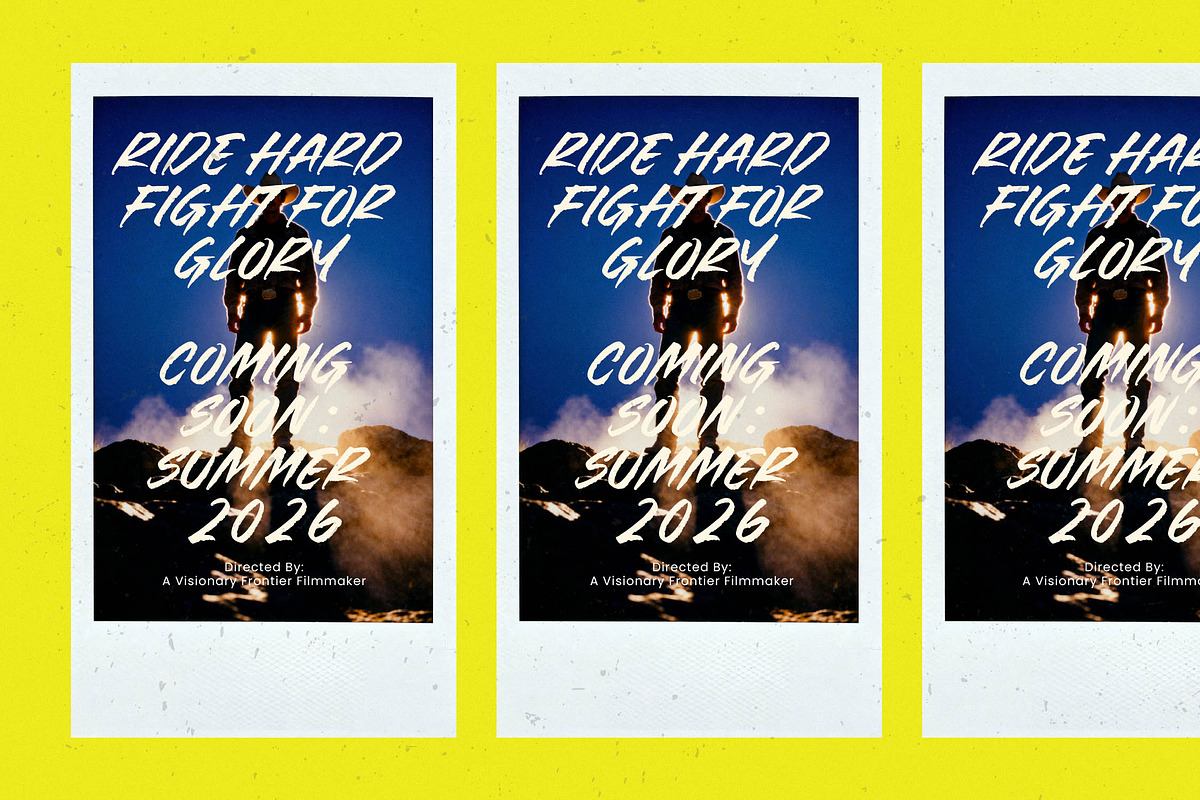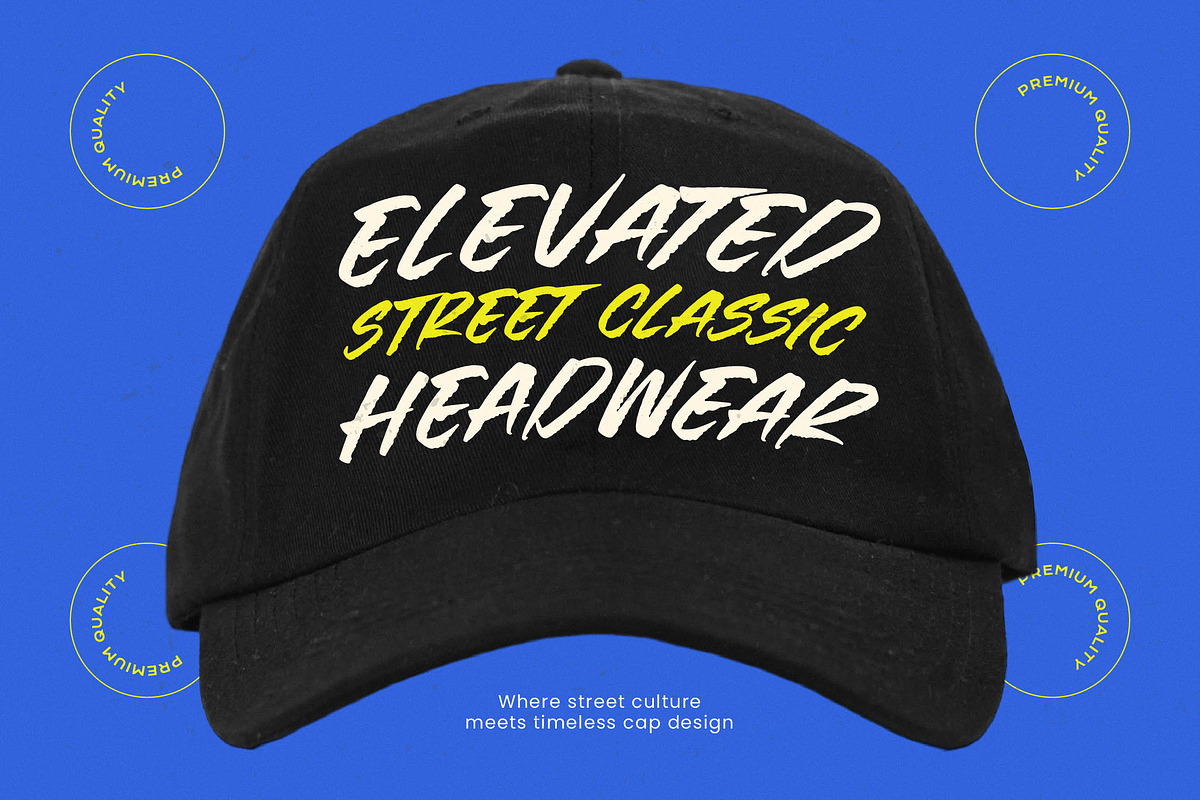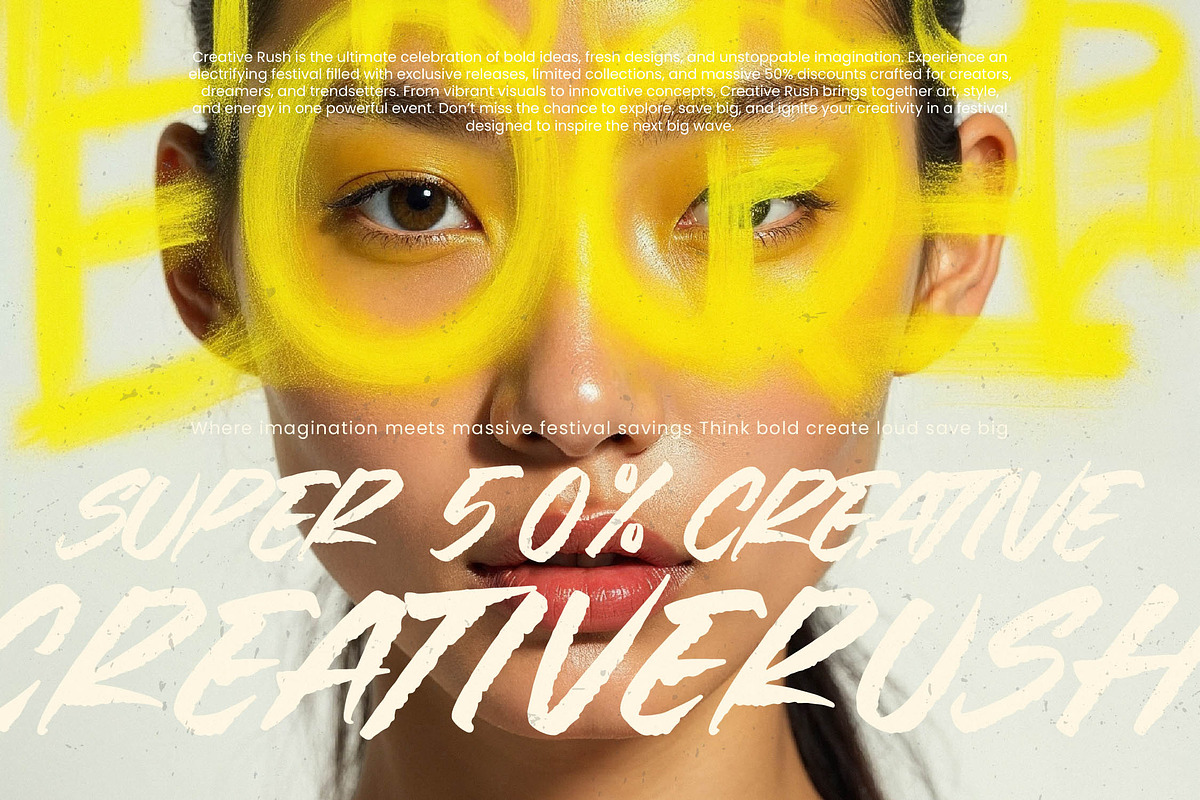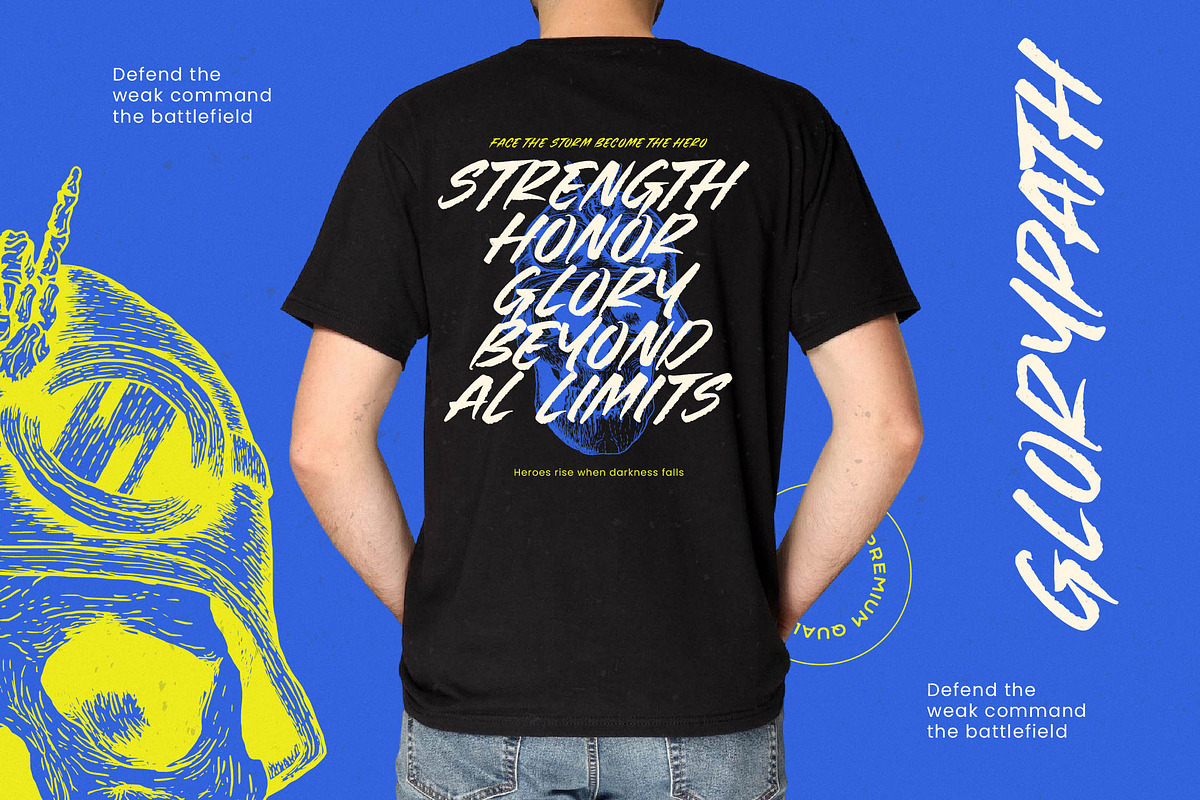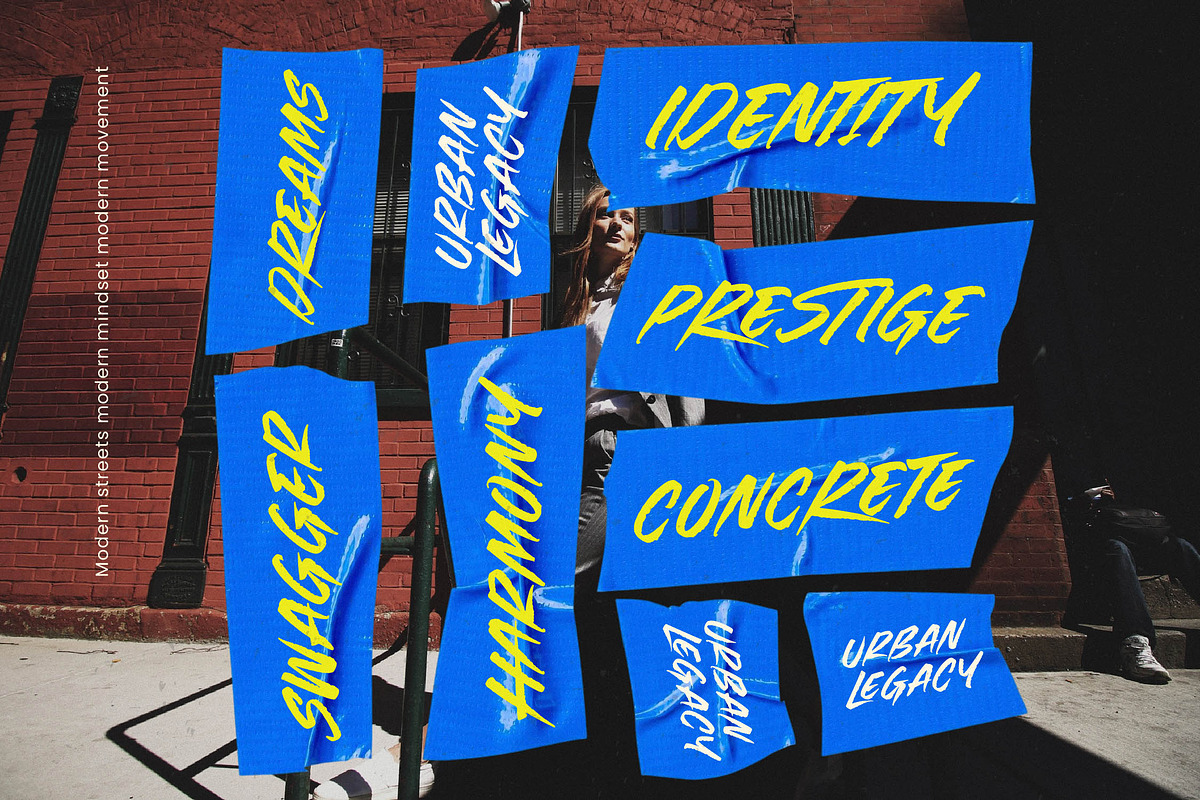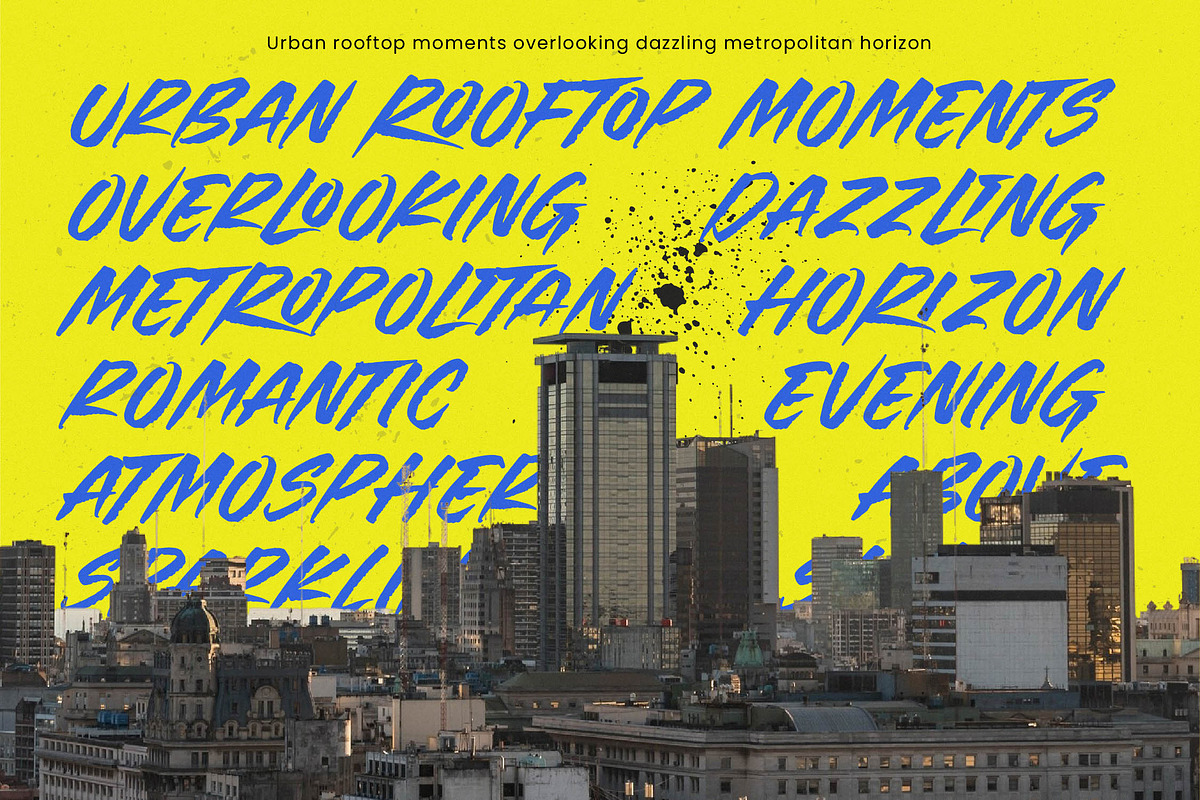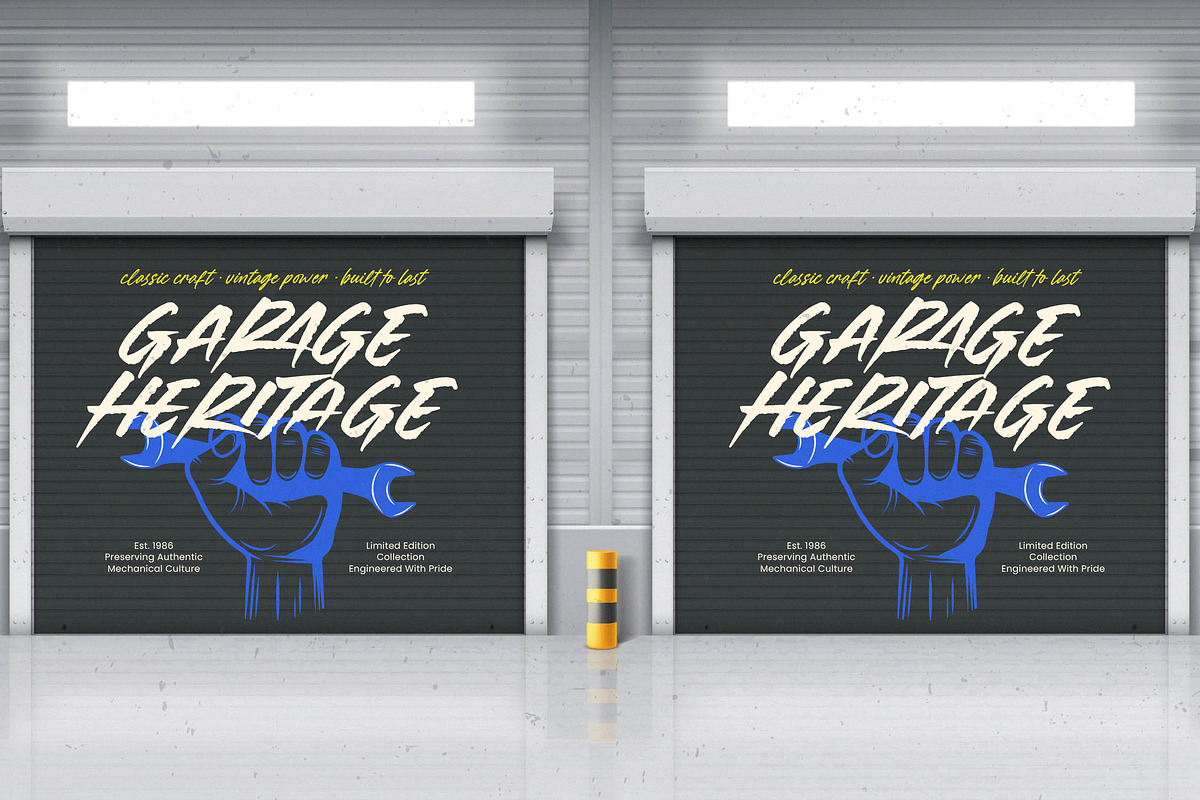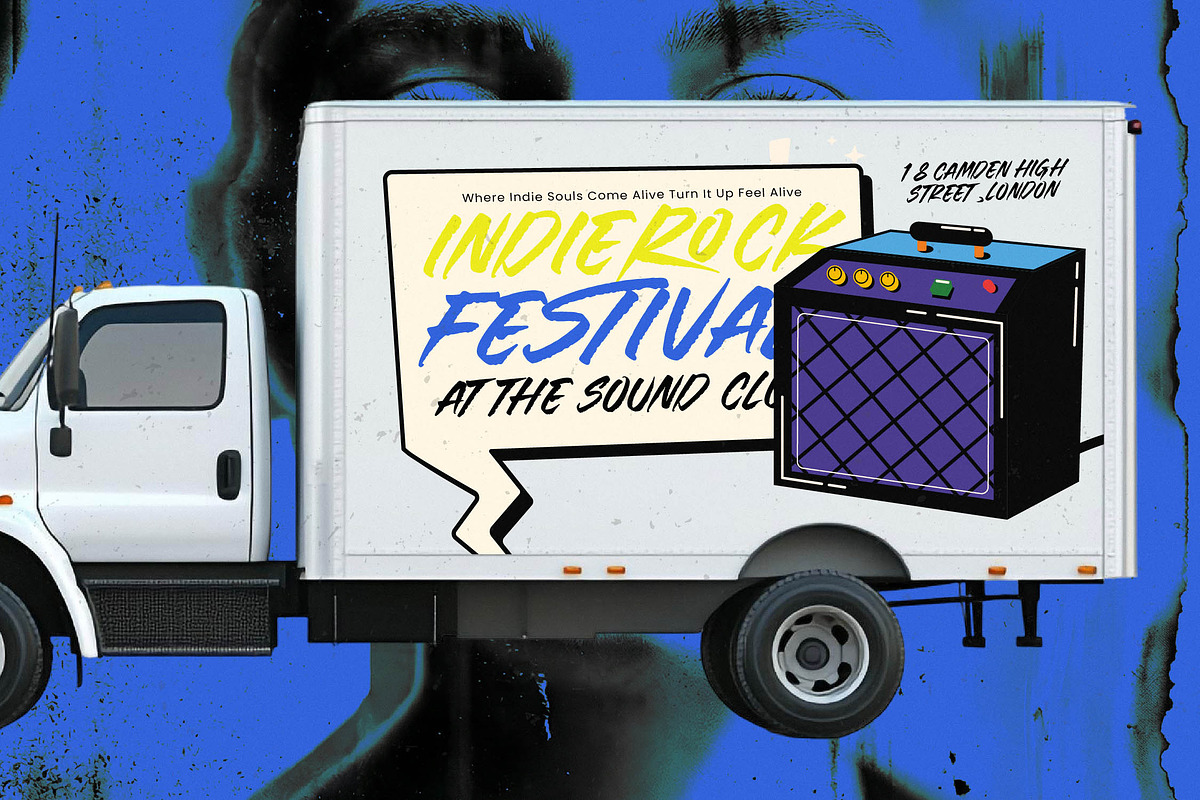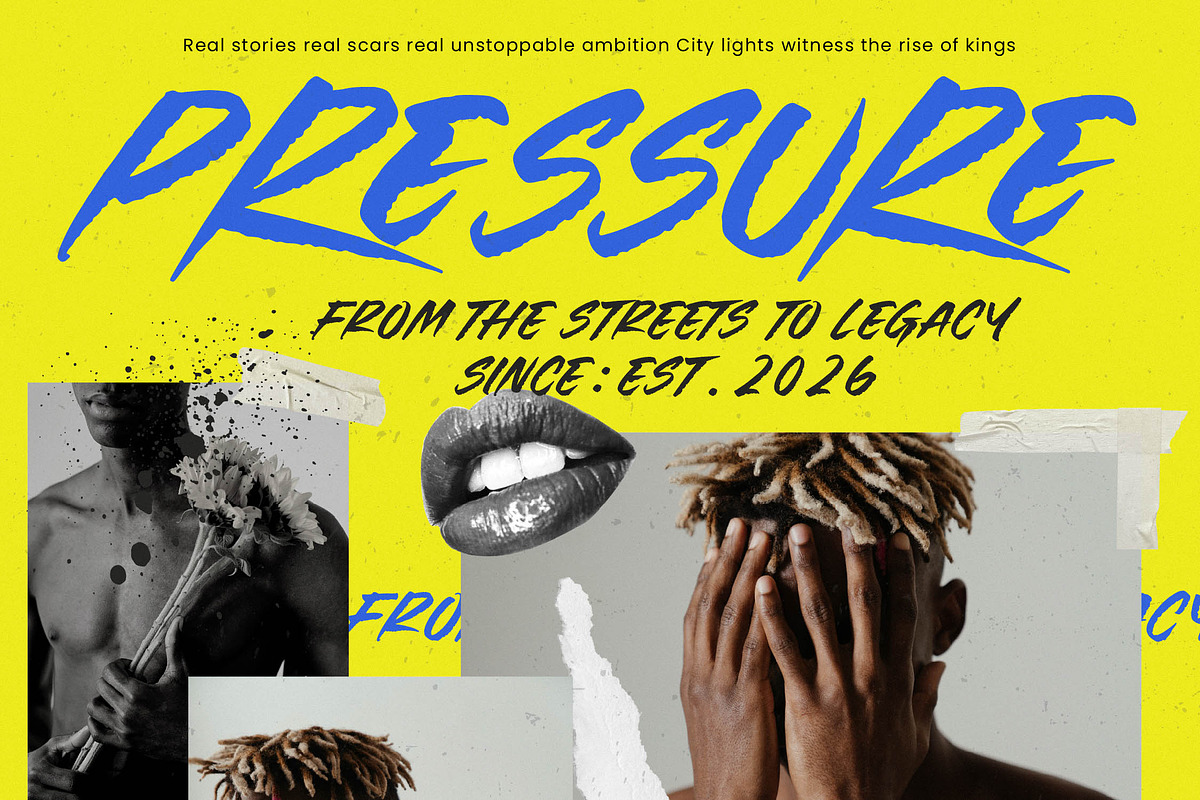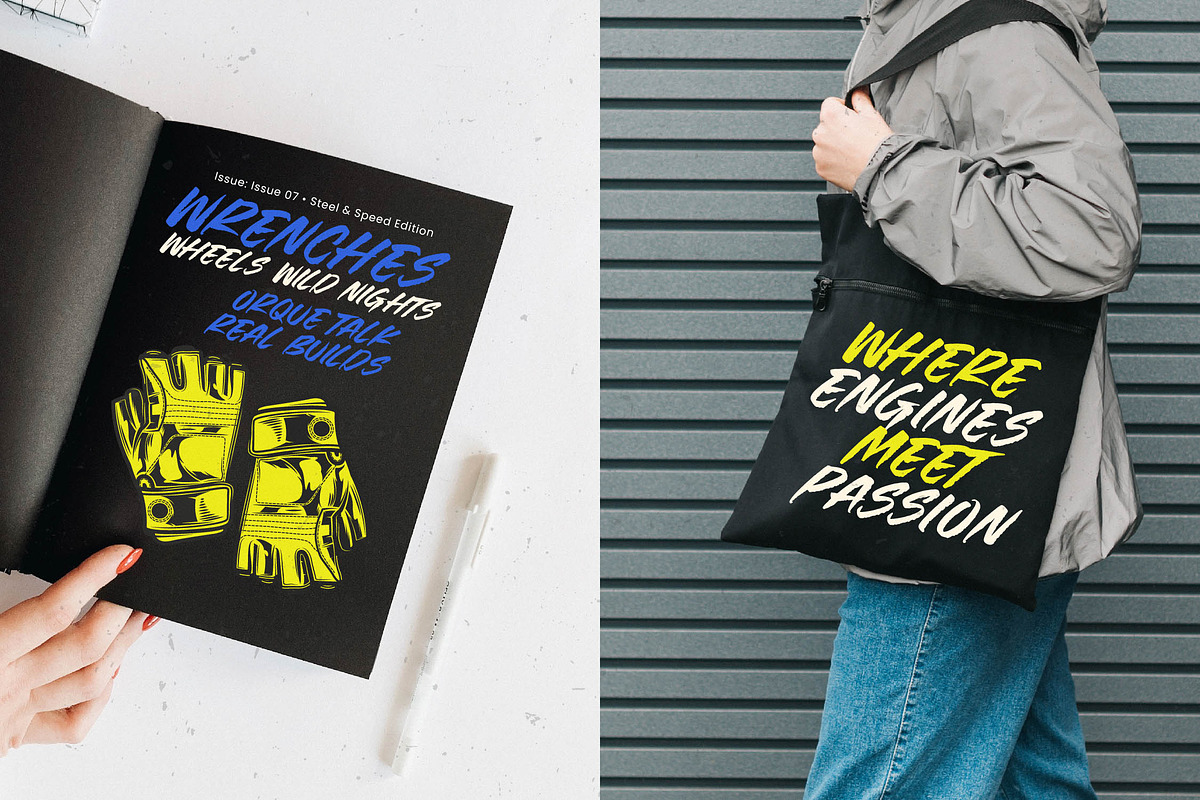
Crownish Display Brush Font
Crownish - Display Brush Font , Unleash raw energy and unapologetic style with Crownish, a font designed to command the room from the first stroke. This bold display brush font captures a sense of movement and intensity that transforms any static design into a living statement.
Inspired by the fast-paced world of urban street art and the gritty texture of real-world brushwork, this typeface reflects the soul of handmade craftsmanship. It carries the weight of authentic ink on paper, bringing a tactile, human element to the digital canvas.
While it functions as a high-energy script, it provides the same professional edge as a modern serif display or luxury typography by maintaining a balanced rhythm. Its sharp angles and thick strokes create a high-contrast serif feel in spirit, making it a powerful editorial font for those who need a massive branding impact.
As designers pivot toward more expressive styles, this typeface perfectly aligns with the modern serif trend of being loud and distinct. It stands out among standard editorial display fonts by offering character-driven typography that feels both nostalgic for 90s grunge and forward-thinking for modern streetwear.
From high-stakes logo design to cohesive visual branding, this font is versatile enough to handle it all. It excels in aggressive editorial layouts, bold packaging concepts, and even adds a rebellious touch to unconventional wedding invites or high-end fashion lookbooks.
This pack is built for professional workflows, featuring 22 unique ligatures, creative alternates, and decorative swashes to ensure your text never looks repetitive. With full multilingual support and a wide range of international characters, it is ready for global creative projects.